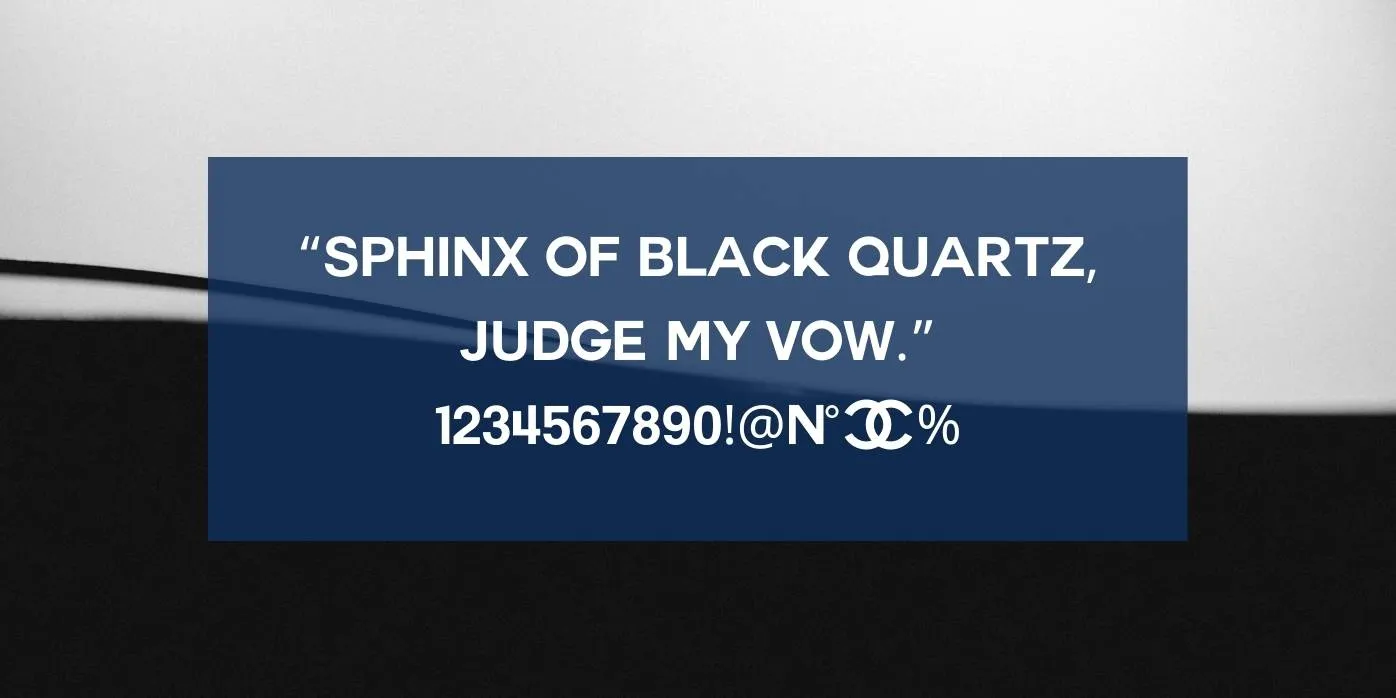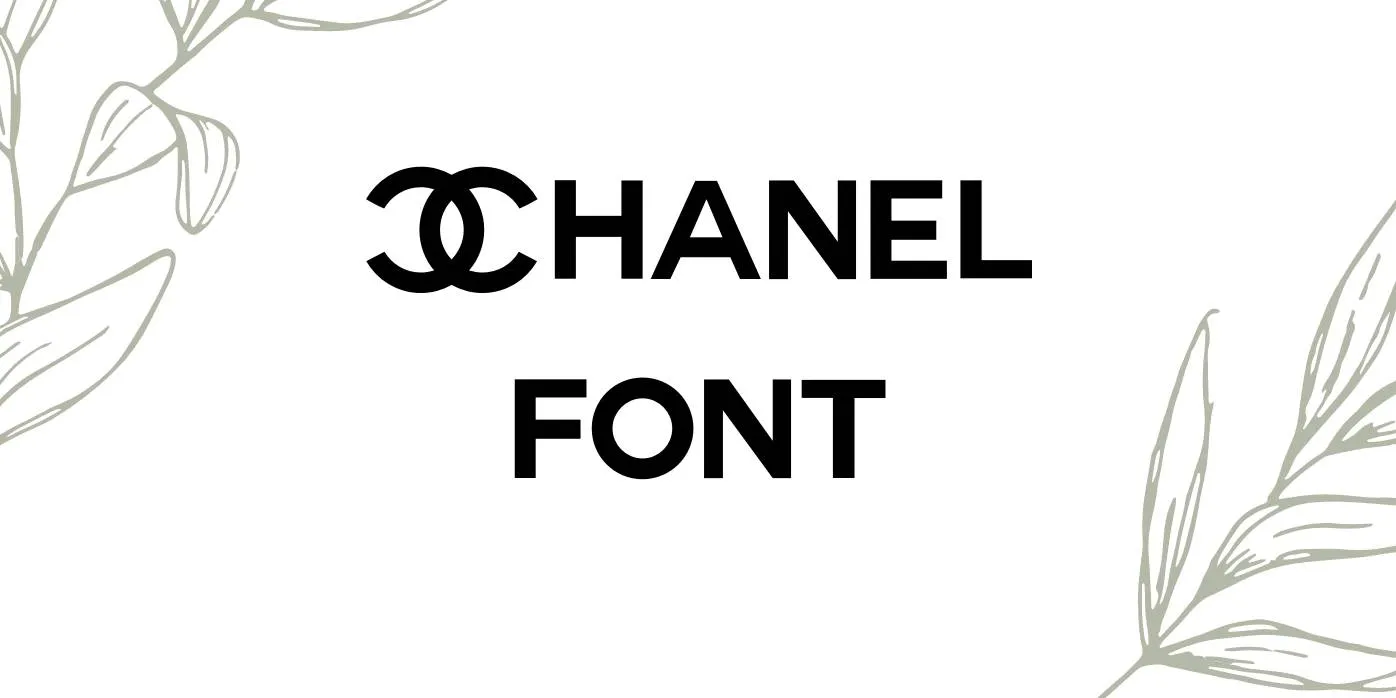
Chanel Font
Here, we present a marvelous typeface known as Chanel Font. This awesome typeface was developed by Chase Babb. This typeface belongs to the sans serif family. Chanel is a French fashion house founded in 1909 by Coco Chanel.
The font takes its name from the famous fashion house and was inspired by the company’s classic logo. The Chanel Font is a great choice for those looking for a clean and modern sans serif typeface. The font has a very minimalistic design and looks great in both headlines and body copy. It is best for different online projects like google docs.
You can also the copy and paste function of this family. Another similar font which is benton sans font is perfect for different designs. It includes 4 different weights (light, regular, bold, and black) which makes it perfect for use in a wide variety of design projects. The Chanel Font is also available in both uppercase and lowercase characters.